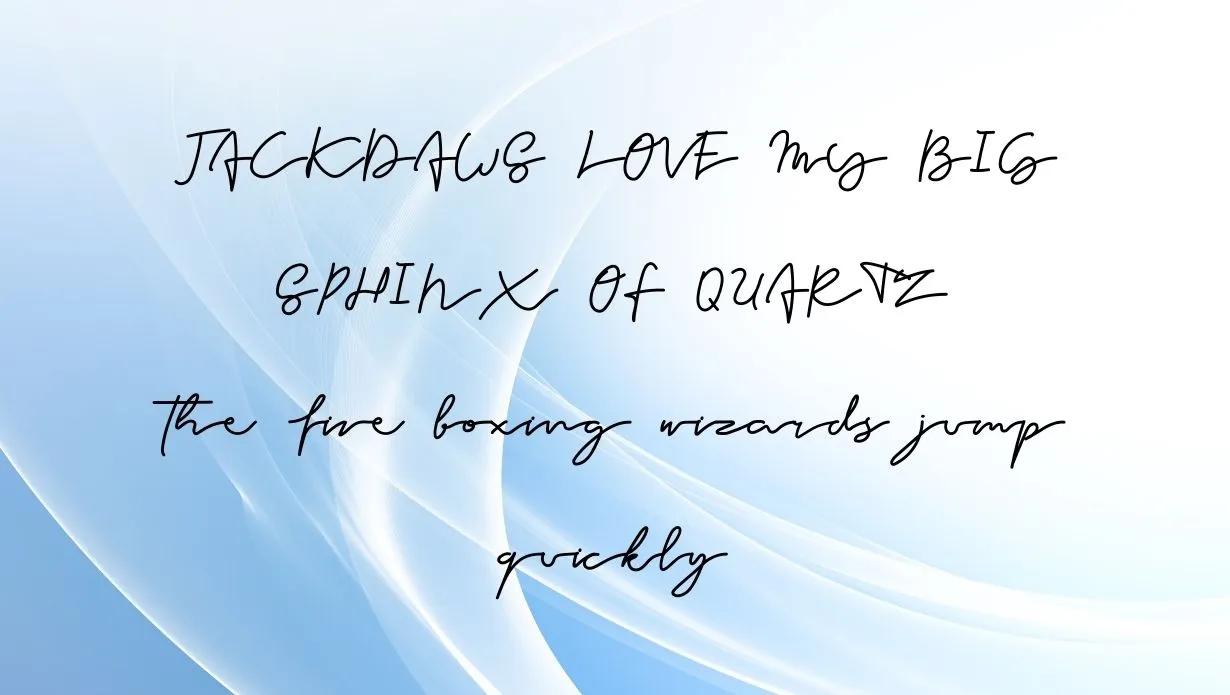
Forever Font is a typeface that was designed by Eric Gill in the early 1930s. The family includes three weights: light, regular, and bold. Forever Font was intended to be used for body text and is therefore highly readable. It has been used extensively throughout history and is still in use today.
This font glyph is letters that are all connected, making it appear as if it were written with a single stroke of the pen. The typeface is named after its creator, Eric Gill, who was a British sculptor, typeface designer, and printmaker.
Who Used Forever Font?
Forever Font can be used for any purpose. However, it is particularly well-suited for body text. If you are looking for a typeface that is both classic and modern, the Forever typeface is a great choice. This font is also commonly used in books and other printed materials.
Today, the Forever typeface is still in use and continues to be a popular choice for body text. It is highly readable and has a long history of use. If you are looking for a typeface that is both classic and modern, Forever texture is a great choice.
Forever Font Family Appearance
NameForever Font
DesignerEric Gill
StyleScript
Is Forever a good typeface?
The Font is a good font choice for those who want to give a modern look to your design. This font is unique and stylish, and it has a long history of use.